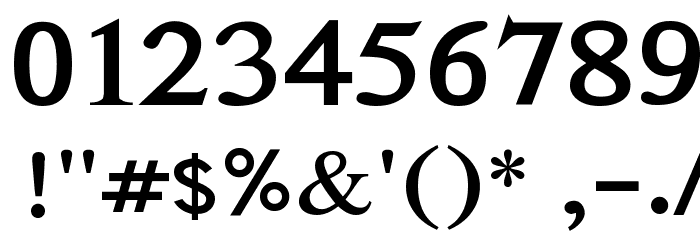
AnmolUni Bold Font
AnmolUni Bold Description
This font features a bold and strong presence, characterized by its thick strokes and clear, defined lines. The numerals and special characters are designed to complement the alphabet, maintaining a consistent weight and style throughout. The font's boldness makes it suitable for attention-grabbing headlines and impactful statements. Its classic serif design adds a touch of elegance and sophistication, making it versatile for both modern and traditional projects. The spacing between characters is balanced, ensuring readability while maintaining a cohesive look.
| Overall Style | Classic |
| Proposed Projects | Ideal for headlines, branding, posters, and any project requiring a bold, elegant touch. |